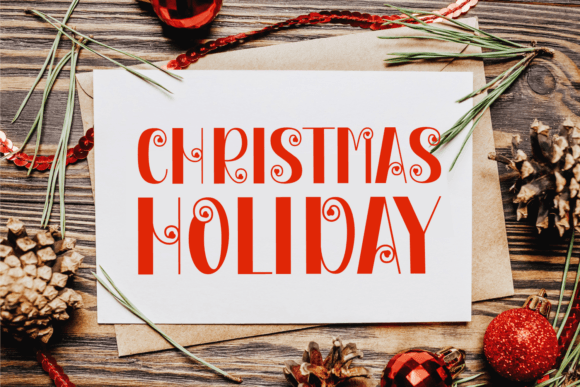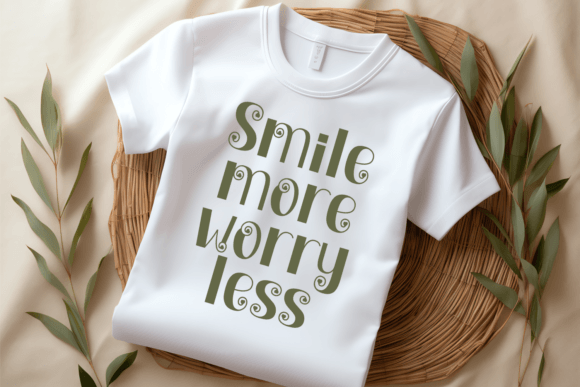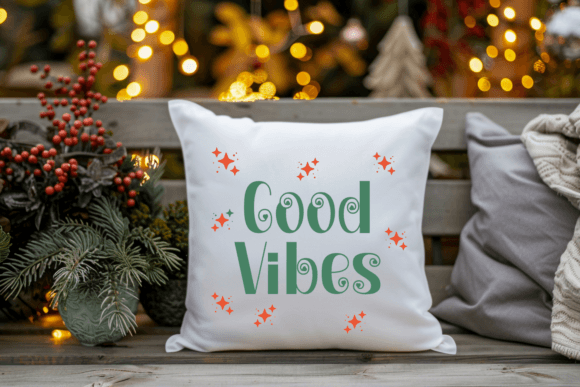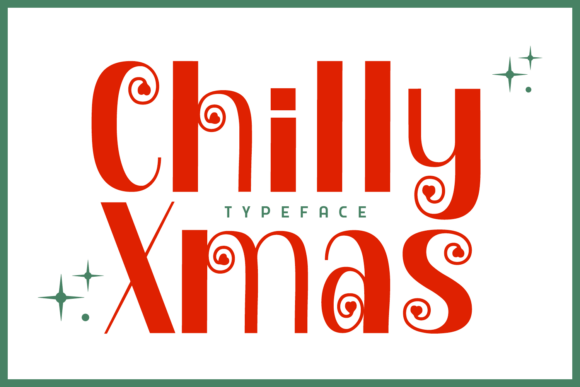
Introducing Chilly Xmas Font: The Perfect Holiday Companion for Designers and Crafters
The holiday season is just around the corner, and with it comes the need for designers and crafters to create festive and engaging content that captures the spirit of Christmas. If you’re looking for a font that embodies the cozy and cheerful vibe of the holiday season, look no further than Chilly Xmas Font. In this article, we’ll dive into the world of Chilly Xmas, exploring its unique features, uses, and benefits for designers and crafters.
What is Chilly Xmas Font?
Chilly Xmas is a casual, handwritten font that exudes warmth and whimsy. Its playful strokes and charming letterforms make it the perfect addition to any holiday design project. Whether you’re creating greeting cards, gift tags, or social media graphics, Chilly Xmas Font is sure to bring a touch of festive cheer to your work.
Key Features of Chilly Xmas Font
- Handwritten style: Chilly Xmas Font boasts a casual, handwritten look that’s perfect for creating a personal and cozy feel in your designs.
- Playful strokes: The font’s playful strokes add a touch of whimsy and fun to your designs, making them perfect for holiday projects.
- Warm and inviting: Chilly Xmas Font has a warm and inviting feel that’s sure to evoke the spirit of the holiday season.
- Versatile: This font is perfect for a wide range of design projects, from greeting cards and gift tags to social media graphics and blog posts.
Uses for Chilly Xmas Font
Chilly Xmas Font is perfect for a variety of design projects, including:
- Greeting cards: Create personalized and festive greeting cards for friends and family with Chilly Xmas Font.
- Gift tags: Add a touch of charm and cheer to your gift tags with this delightful font.
- Social media graphics: Use Chilly Xmas Font to create engaging and festive social media graphics that capture the spirit of the holiday season.
- Blog posts: Add a touch of holiday cheer to your blog posts with Chilly Xmas Font.
- Seasonal designs: Use this font to create a wide range of seasonal designs, from holiday posters to Christmas party invitations.
Chilly Xmas Font offers a range of benefits for designers and crafters, including:
- Customizable: Chilly Xmas Font can be customized to fit your design needs, allowing you to create unique and personalized projects.
- Time-saving: With Chilly Xmas Font, you can create festive and engaging designs in no time, saving you time and effort.
- High-quality: This font is of high quality, ensuring that your designs look professional and polished.
Tips for Using Chilly Xmas Font
Here are some tips for using Chilly Xmas Font in your design projects:
- Pair with complementary fonts: Pair Chilly Xmas Font with complementary fonts to create visually appealing and cohesive designs.
- Experiment with colors: Experiment with different colors and textures to add depth and interest to your designs.
- Use in combination with graphics: Use Chilly Xmas Font in combination with graphics and illustrations to create engaging and festive designs.
Chilly Xmas Font is a delightful and charming font that’s perfect for designers and crafters looking to add a touch of festive cheer to their holiday designs. With its playful strokes, warm and inviting feel, and versatility, this font is sure to become a go-to for holiday design projects. Whether you’re creating greeting cards, gift tags, or social media graphics, Chilly Xmas Font is the perfect companion for the holiday season.